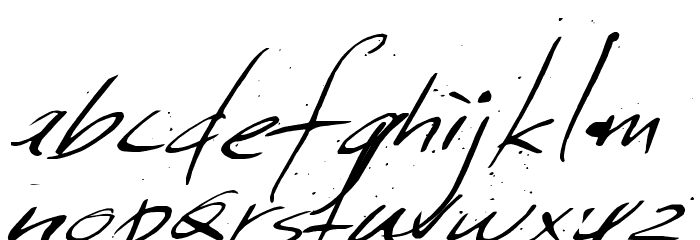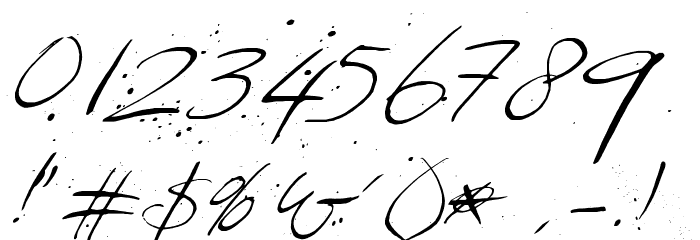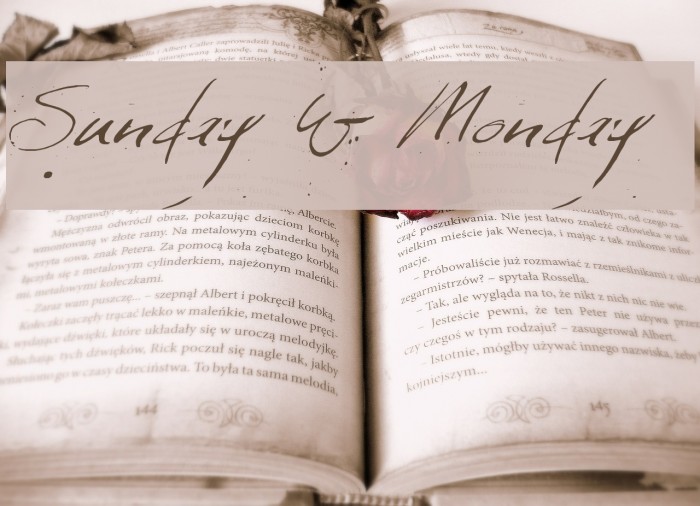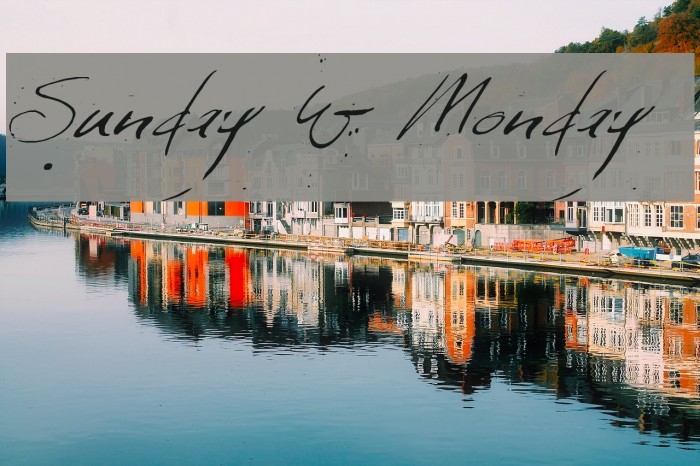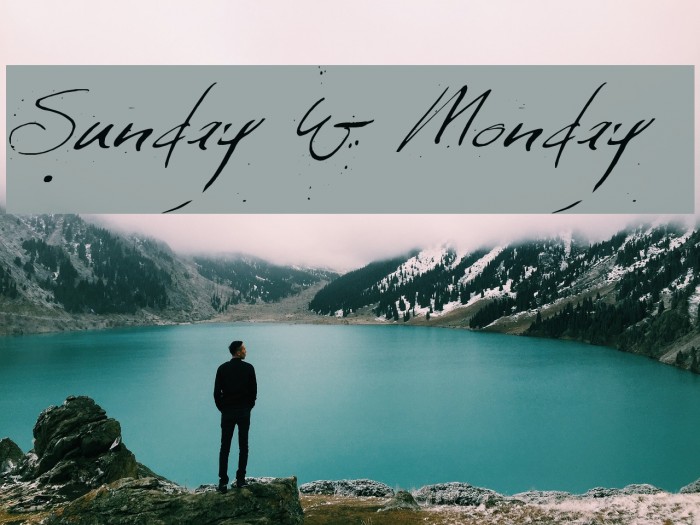
Sunday & Monday Font
This font exhibits a dynamic and expressive handwritten style, characterized by its bold, sweeping strokes and energetic flair. The letters are irregular and varied, giving a sense of spontaneity and artistic freedom. The uppercase letters are particularly striking, with exaggerated curves and angles, while the lowercase letters maintain a fluid and connected appearance. The numbers and special characters follow the same energetic style, adding to the overall cohesive look. This font is perfect for projects that require a personal, artistic touch, such as invitations, posters, or branding for creative industries.
A dynamic, expressive handwritten font with bold, sweeping strokes.
- Proposed Projects: Ideal for creative projects like invitations, posters, and artistic branding.
- Use Case: Logos, Headlines, Artistic projects